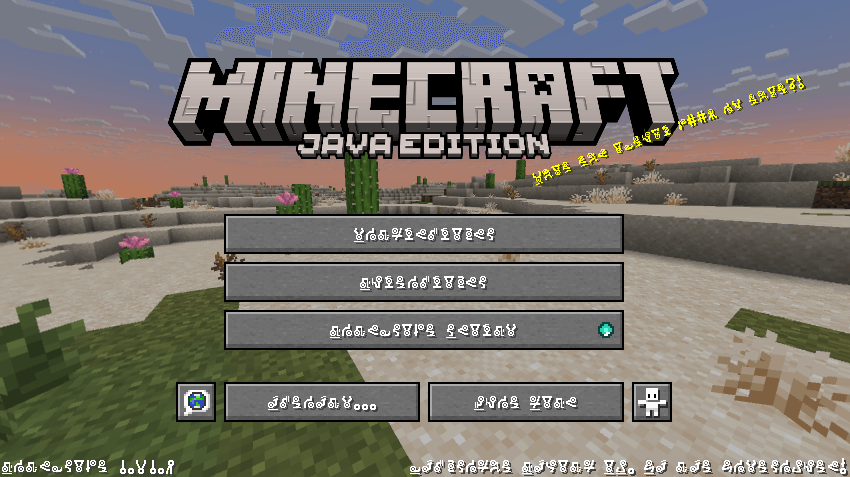
Artition's Font Resource Pack
This resource pack replaces the default Minecraft font with a custom cipher-style encrypted font made by Artition.
All characters are fully readable once you get used to them, but at first glance the text looks mysterious, distorted, and intentionally “cursed”.
The pack is designed for players who want to change the visual perception of text in the game without affecting gameplay mechanics.
- Replaces the default Minecraft font with a unique encrypted-looking cipher font
- Supports Latin characters (A–Z, a–z), numbers, basic symbols, and punctuation
- All UI elements remain functional: menus, chat, item names, tooltips, commands
This pack does not change gameplay balance or mechanics.
Instead, it alters how text is visually perceived:
- Menus and chat feel more cryptic and atmospheric
- Reading text becomes an intentional action rather than automatic scanning
- Great for ARG-style worlds, puzzle maps, horror maps, or roleplay servers
- Adds a layer of mystery even to familiar UI elements
Over time, players naturally adapt and begin recognizing characters, turning the font into a visual cipher rather than unreadable noise.
- ARG / mystery projects
- Horror or liminal-themed worlds
- Puzzle maps with encoded clues
- Roleplay servers with secret knowledge or factions
- Personal aesthetic customization
- This font is intentionally unusual and may reduce readability for some players
- Not recommended for competitive gameplay or fast-paced PvP
- Best experienced when combined with atmospheric texture packs or shaders